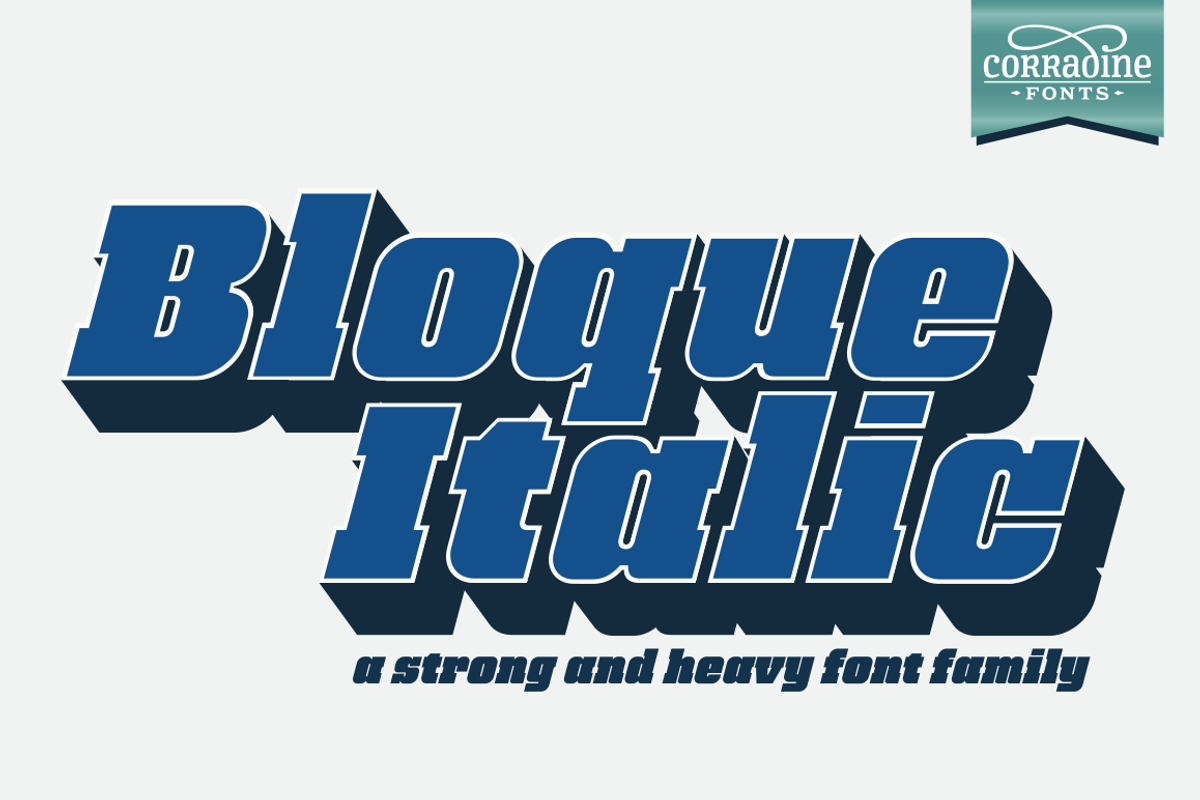
Bloque Italic Font Free Download is a bold and dynamic typeface designed to make a statement. With its slanted, italicized design, this font delivers strong visual energy and is perfect for headlines, posters, branding, and other design projects that need a touch of elegance combined with a sense of urgency.
Its clean lines and sharp angles provide a modern, professional look, making it an excellent choice for any design that calls for bold typography with a bit of flair. Whether you're working on marketing materials, product packaging, or digital graphics, Bloque Italic will help your designs stand out.